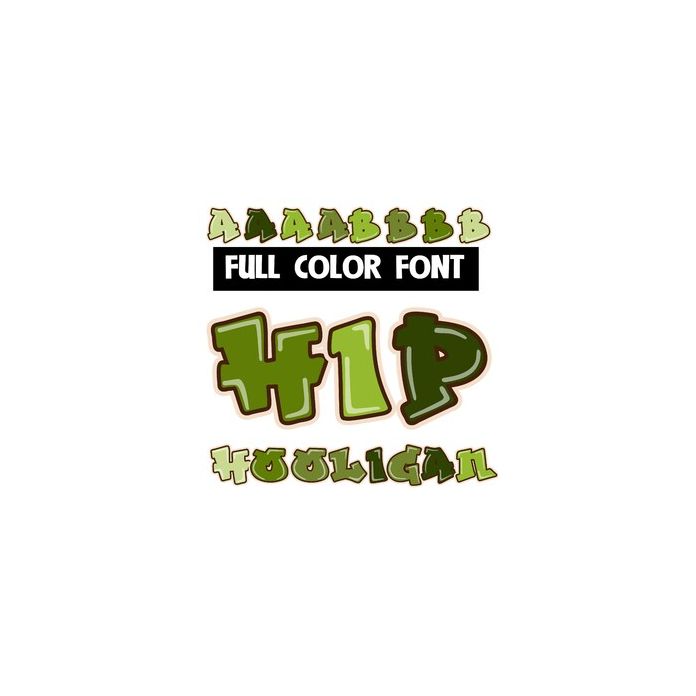
This full-color font features a graffiti style green font. There is a an alt version w/ secondary colors available through your system's or Silhouette's glyph map.